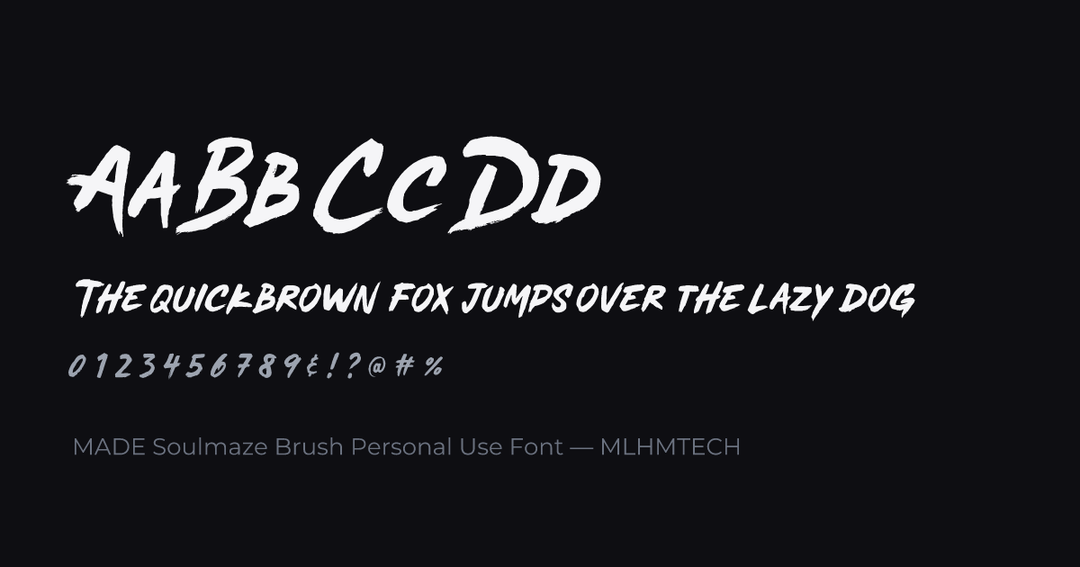
MADE Soulmaze Brush Personal Use Font
MADE Soulmaze Brush is a bold, hand-drawn brush font with a raw, artistic edge. Ideal for logos, posters, and branding projects.
MADE Soulmaze Brush is a distinctive brush typeface that brings a handcrafted, energetic feel to your designs. Its thick strokes and irregular edges give it an authentic, paint-on-canvas look, making it perfect for creative projects that need a personal touch.